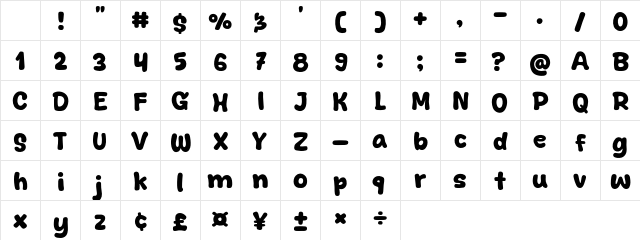
Bright Aura is a composed and adaptable typeface that performs quietly and consistently across a wide range of design contexts.
Pro Tip: Use Bright Aura in both headline and body roles to test its range before committing to a single application.